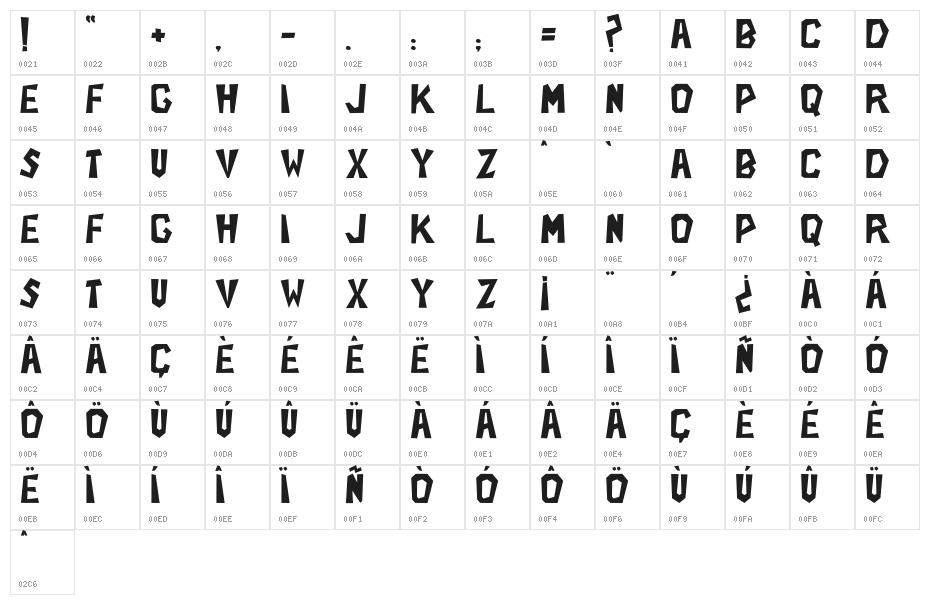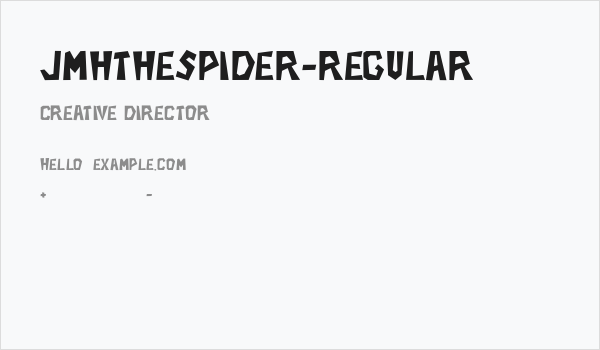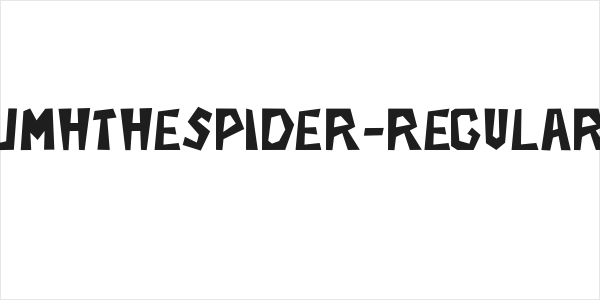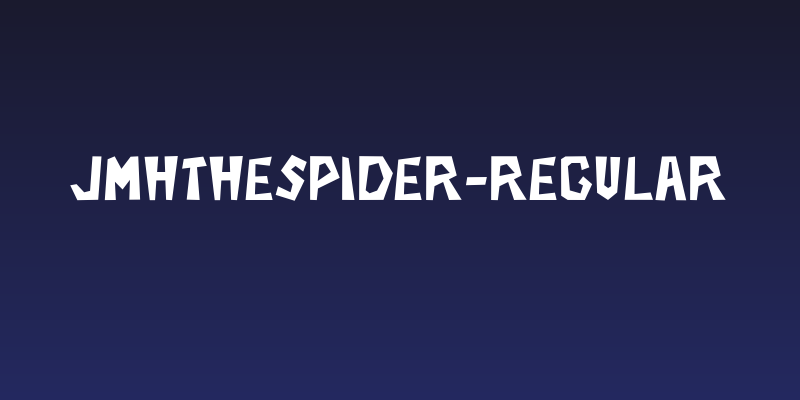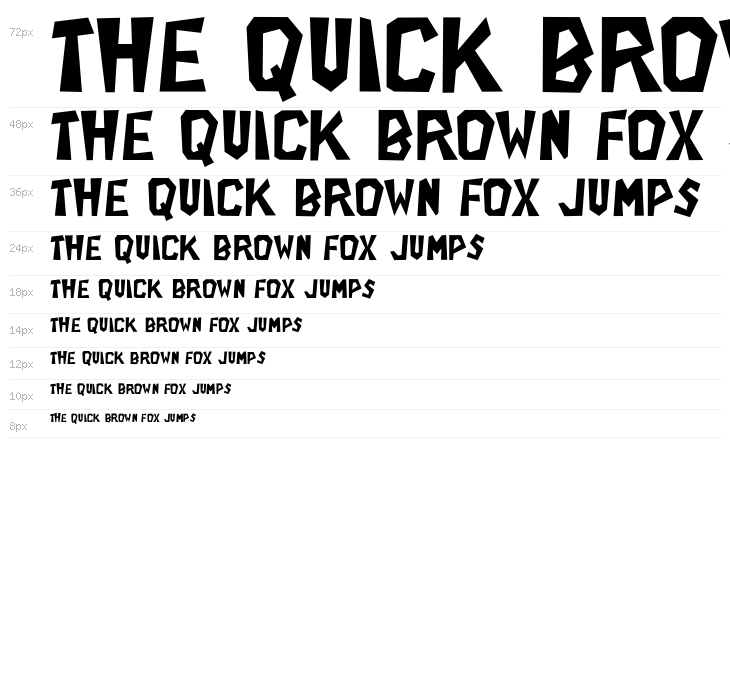
JMHTHESPIDER-Regular Font
JMHTHESPIDER-Regular Description
This font features a bold and angular design, reminiscent of a spider's web with its sharp, geometric edges. The uppercase letters are distinct with a strong presence, making them ideal for attention-grabbing headlines. The characters are slightly condensed, enhancing the compact and impactful appearance. The font lacks lowercase letters and numbers, focusing instead on delivering a striking visual through its uppercase alphabet and limited punctuation. Its unique style is both modern and edgy, suitable for projects that require a bold statement.
| Width | Condensed |
| Overall Style | Modern, Edgy |
| Use Case | Headlines, Posters, Themed Events |
| Proposed Projects | Ideal for horror-themed posters, Halloween invitations, or any project needing a bold, eye-catching typeface. |